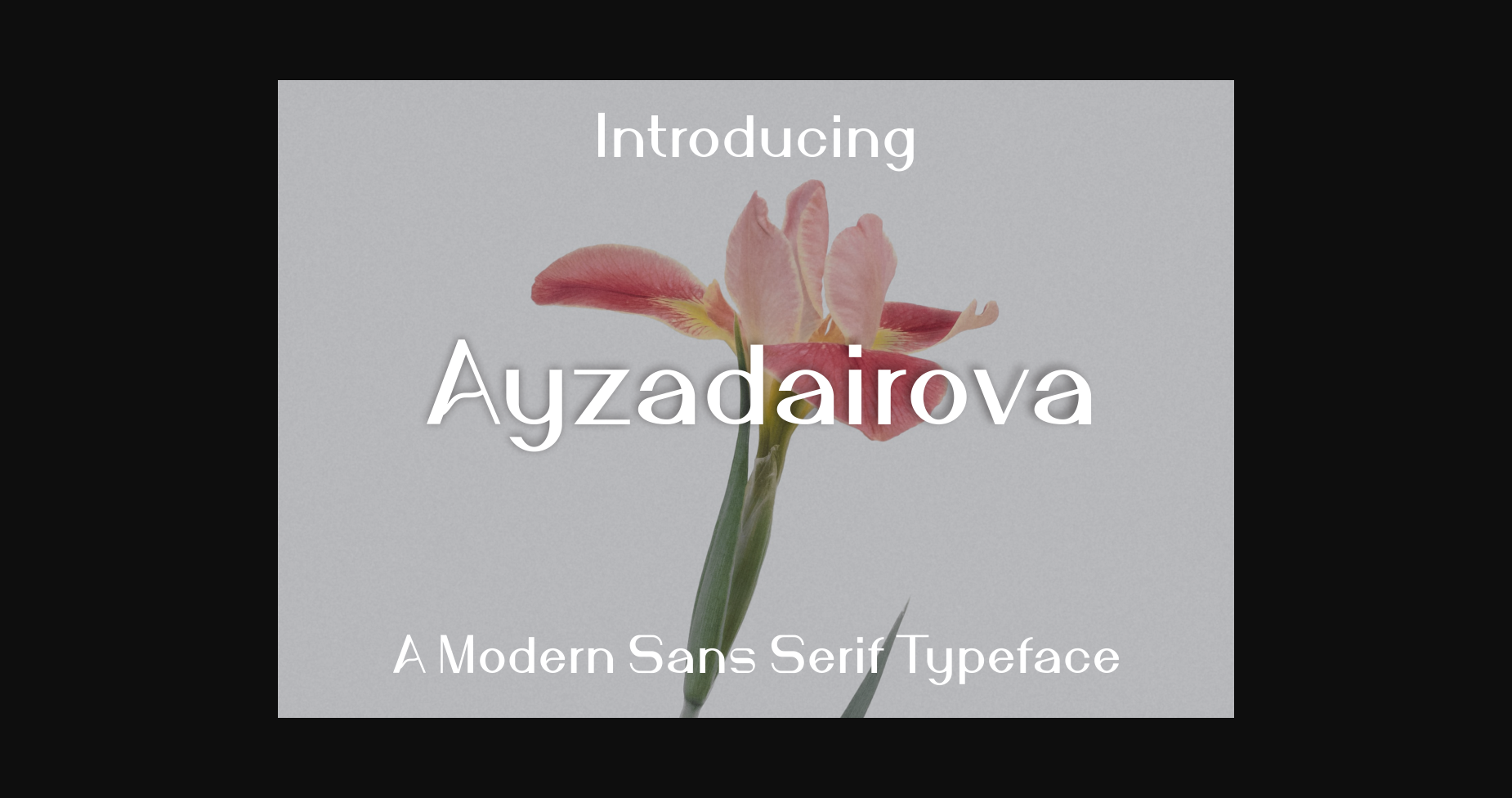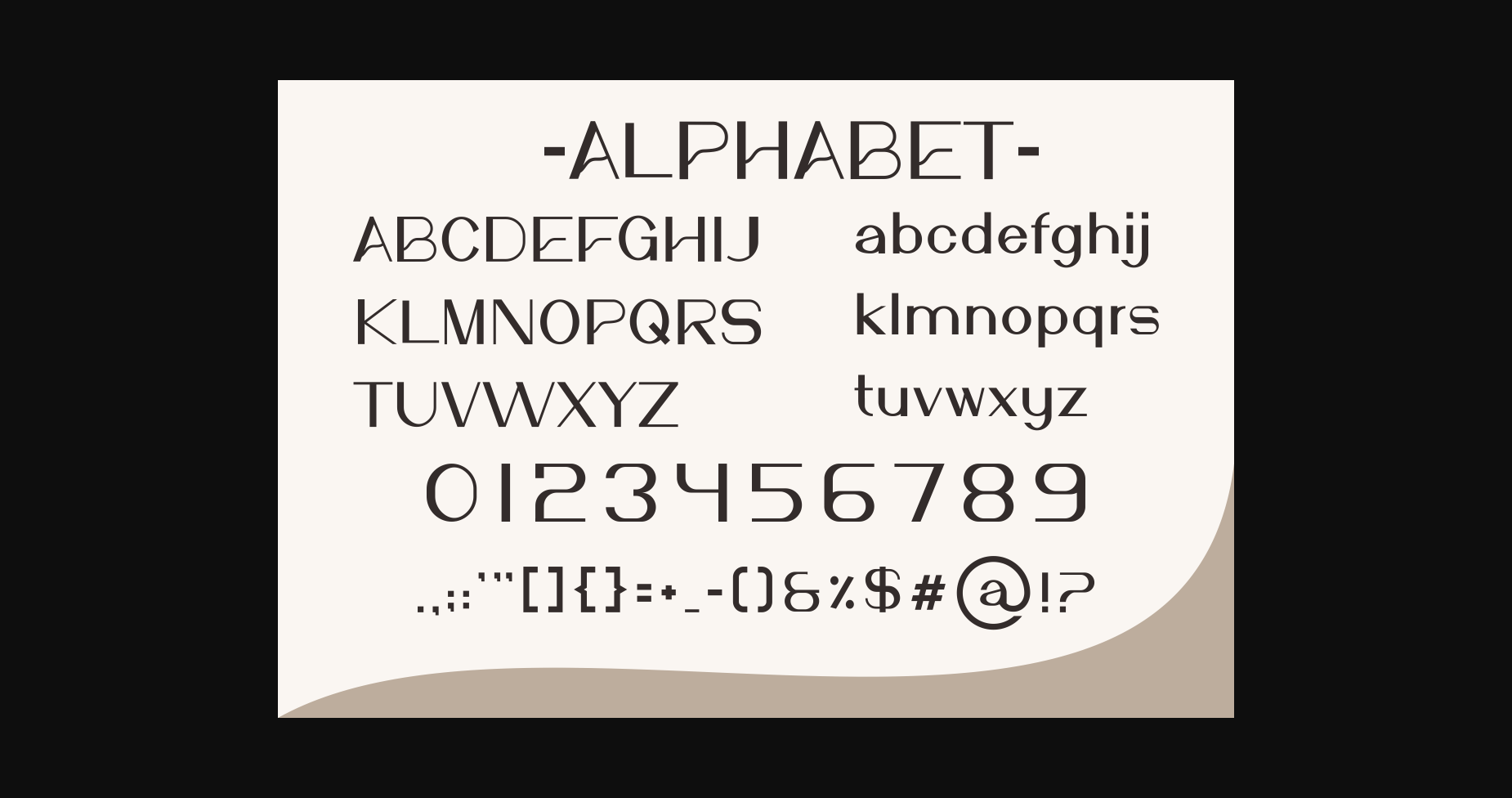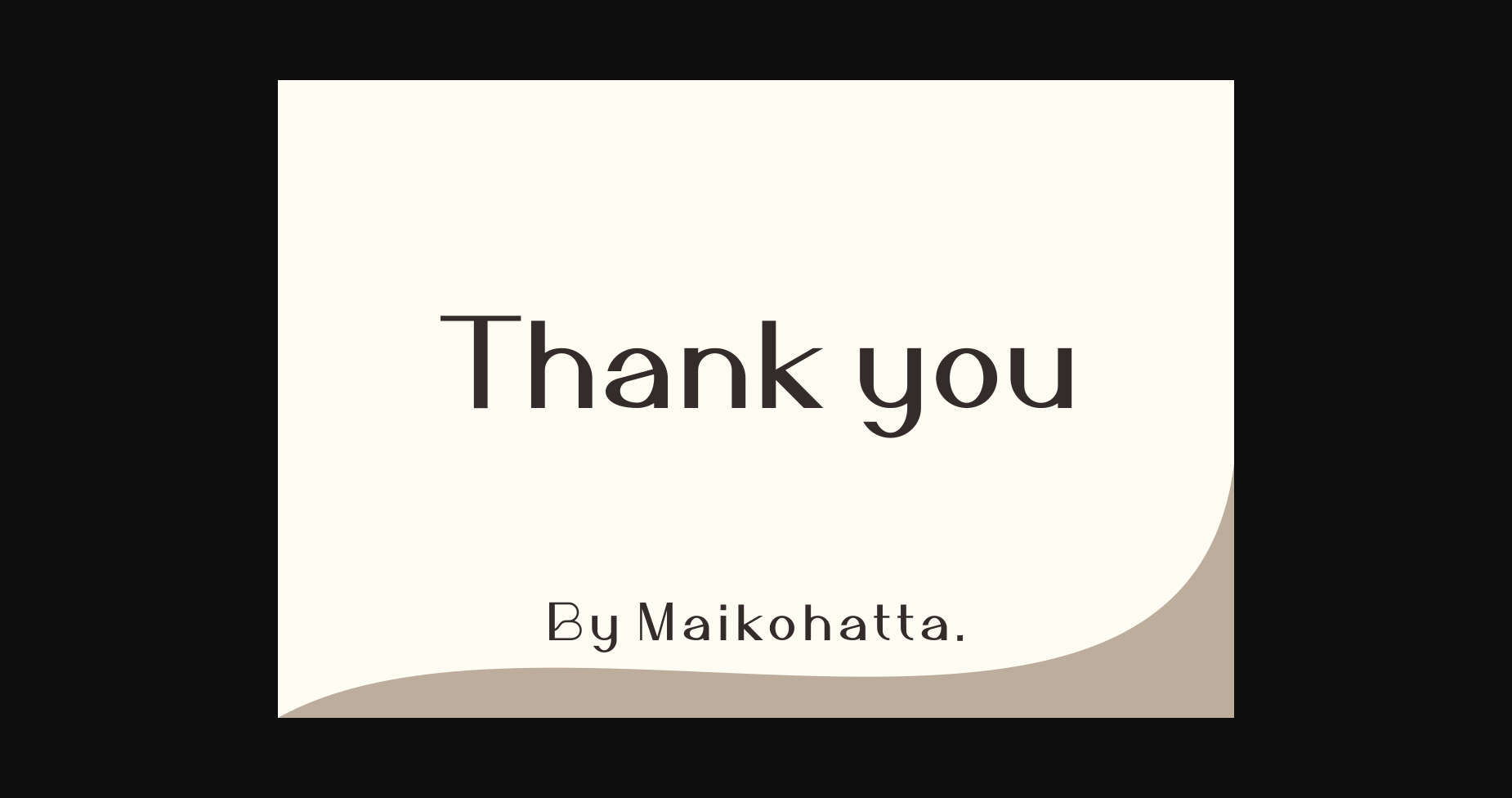
About Ayzadairova Font
Ayzadairova is a modern and authentic sans serif font. Classy and stylish, this font will enhance any project you wish to add it to.